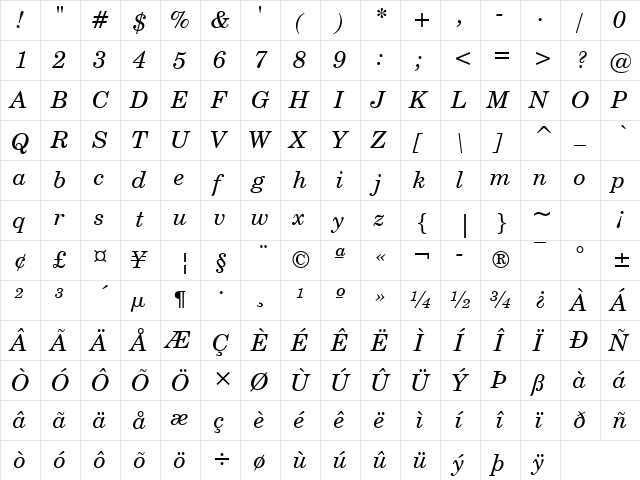
CentSchbook Win95BT Italic
Design Context for CentSchbook Win95BT Typeface
CentSchbook Win95BT is a composed and adaptable typeface that performs quietly and consistently across a wide range of design contexts. The dynamic lean of this cut emphasises speed and emphasis in any layout.
Pro Tip: Use CentSchbook Win95BT for emphasis, pull quotes, and subheadings where its slanted energy can add rhythm to the layout.